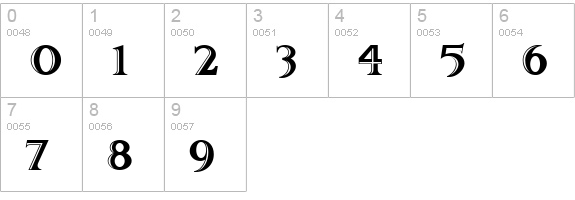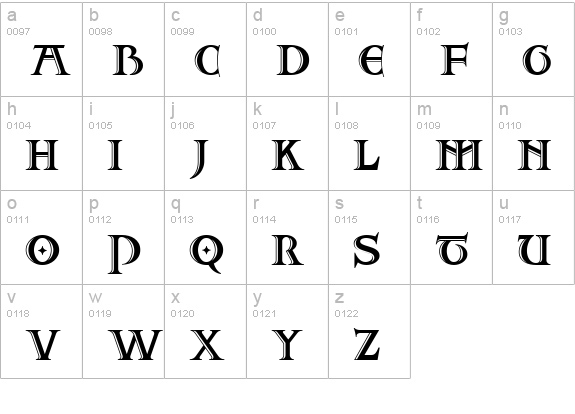
Two For Juan NF Font Details
Two For Juan NF font is a unique and stylish typeface that exudes a sense of modernity and sophistication. With its sleek lines and elegant curves, this font is perfect for adding a touch of class to any design project. Whether you're working on a website, brochure, or logo, Two For Juan NF font will make your text stand out and leave a lasting impression. What's even better is that Two For Juan NF font is completely free to download at FontsMarket.com. So you can elevate your designs without breaking the bank. Don't miss out on this opportunity to enhance your projects with a high-quality font that's both visually appealing and budget-friendly. Download Two For Juan NF font today and take your designs to the next level.